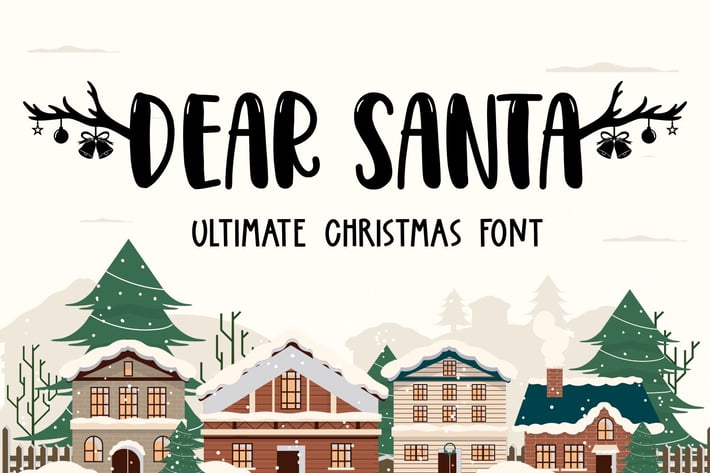
Dear Santa - Christmas Font
Bring a touch of festive charm to your projects with Dear Santa, a cute and fun display font that shines during the holiday season and beyond. Designed with a playful spirit, this font is perfect for all your Christmas, Easter, Thanksgiving, and crafting needs. Its delightful style adds a cheerful and whimsical touch to any design, making it a great choice for both personal and professional use.
Dear Santa features unique alternative characters with reindeer antlers adorning the beginning and end of each word, enhancing the holiday magic in your creations. This special detail adds a layer of creativity and fun, making your designs stand out with festive flair and joyful personality.
Ideal for Cricut projects, embroidery, and craft designs, Dear Santa effortlessly brings festive joy to cards, decorations, and gifts. Its charming display style ensures that your holiday projects will be both eye-catching and memorable, spreading cheer and delight wherever they are seen.
For fashion posters, magazine layouts, banners, and advertising, Dear Santa offers a playful yet stylish touch that will captivate your audience. Its versatility allows it to adapt to various design needs while maintaining its cute and engaging character.
With PUA Encoding, accessing the font’s special alternate characters is a breeze, ensuring you can easily incorporate every whimsical detail into your designs. Embrace the festive fun and elevate your creative projects with Dear Santa, a font that brings holiday magic to life with every letter.